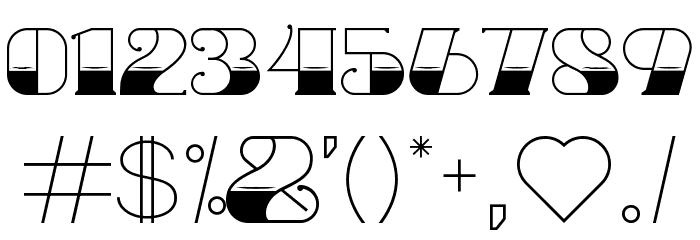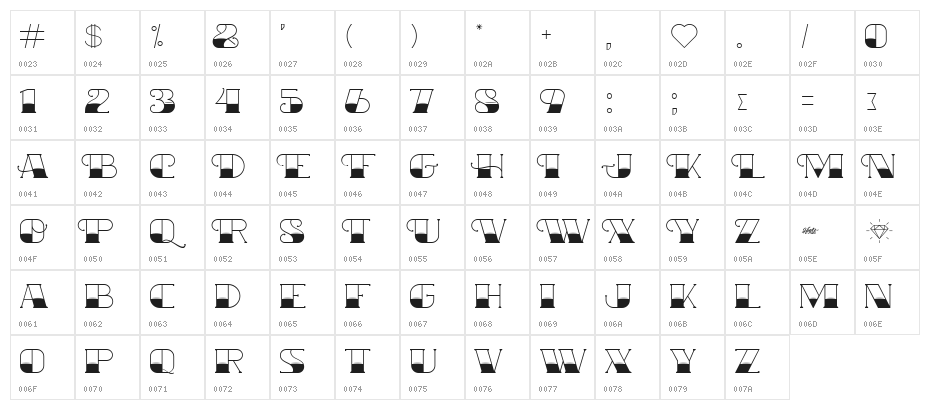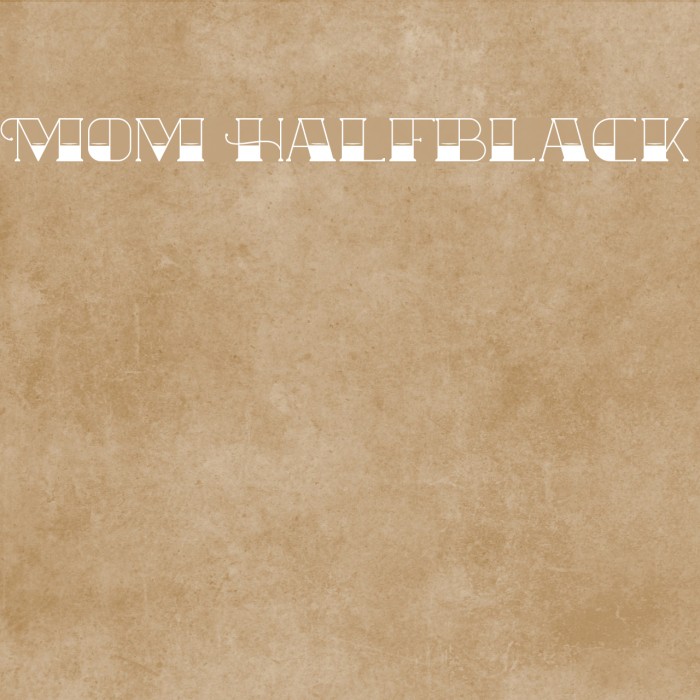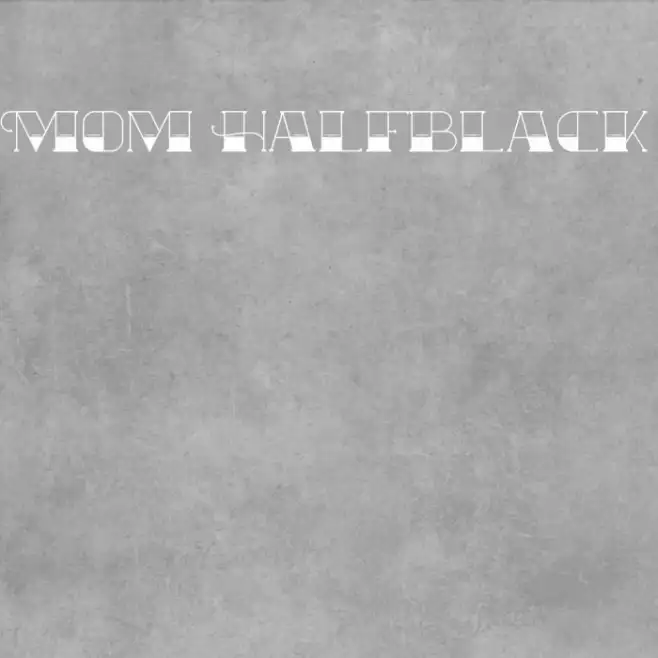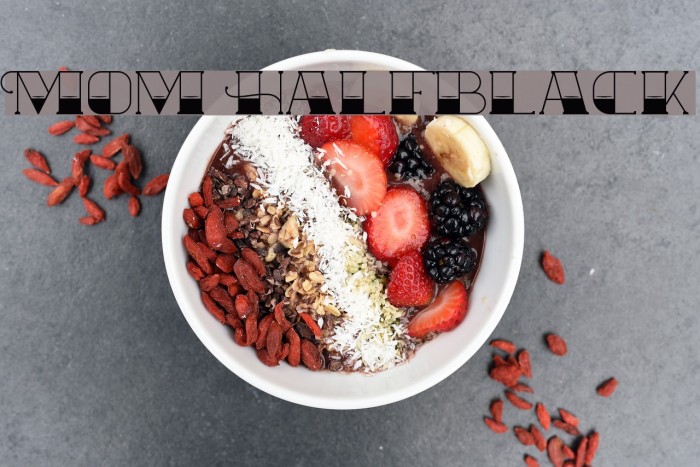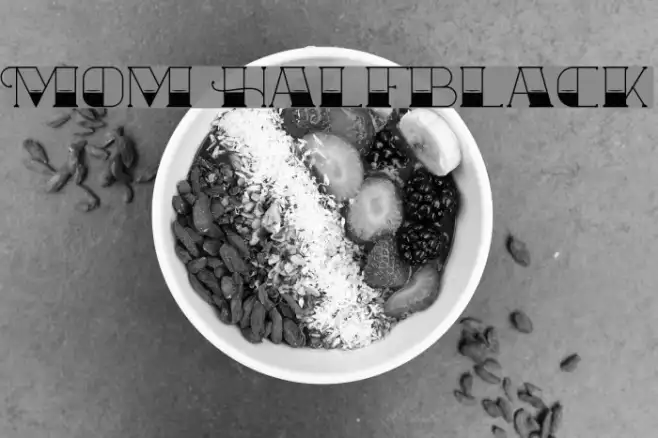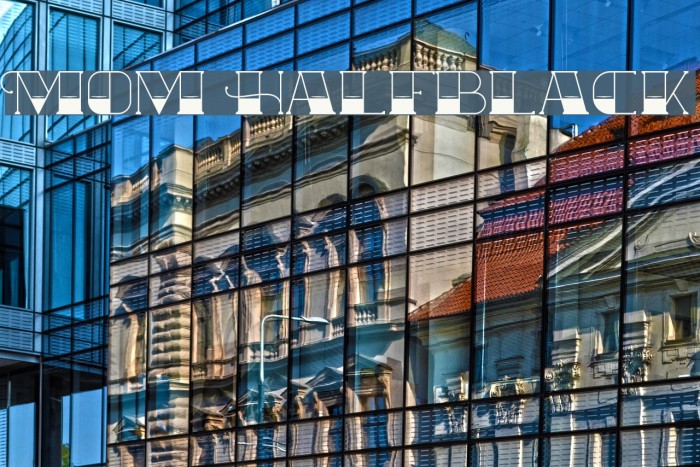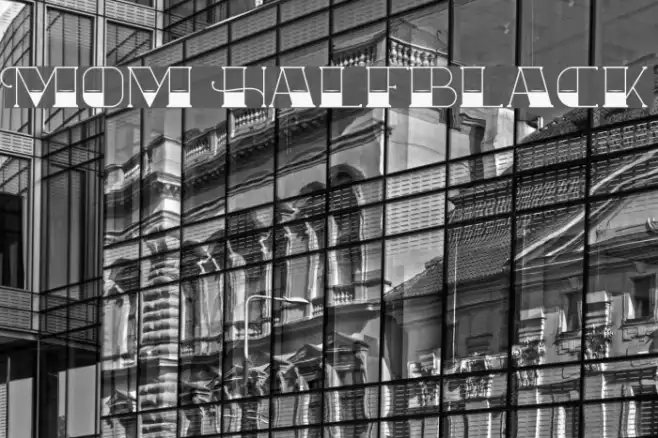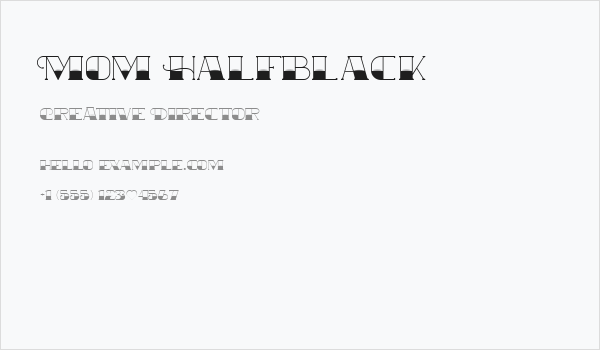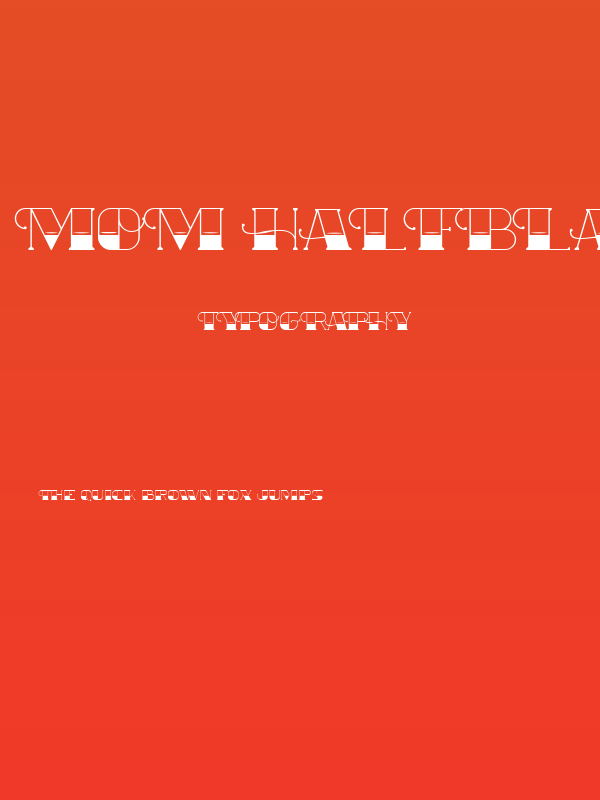
Mom Halfblack Font
Mom Halfblack Description
This font features a unique and striking design with a half-black, half-white aesthetic. Each character is divided horizontally, with the top half being a clean, white outline and the bottom half filled in solid black. The uppercase letters are bold and geometric, while the lowercase letters maintain a consistent style, offering a cohesive look across the alphabet. Numbers and special characters follow the same design principle, ensuring uniformity. The font's modern and artistic style makes it stand out, suitable for creative and eye-catching designs.
| Proposed Projects | Ideal for branding, posters, album covers, and any project requiring a bold, artistic touch. |